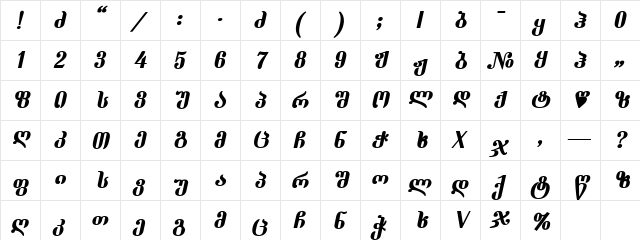
Dumbadze-ITV Bold Italic
Design Context for Dumbadze-ITV Typeface
Dumbadze-ITV offers clean, dependable letterforms without strong stylistic allegiance, making it a practical choice for designers who need flexibility. The slanted form adds forward momentum and visual energy. The heavy weight commands attention and anchors typographic hierarchies.